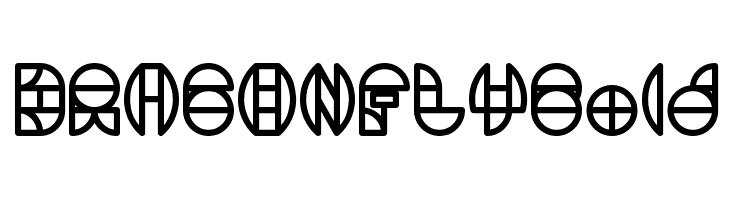
• DRAGON FLY Bold caratteri
A bold, geometric font with a futuristic and modern design.
• DRAGON FLY Bold Italic caratteri
A bold, italicized decorative font with geometric and modern elements.
• DRAGON FLY Italic caratteri
A bold, geometric italic font with a futuristic and dynamic style.
• DRAGON FLY_outlined caratteri
A futuristic, geometric outlined font with a modern and abstract style.
• DRAGON FLY-Filled caratteri
A bold, geometric font with playful and abstract character shapes.
• DRAGON FLY-Inverse caratteri
A geometric, futuristic font with outlined characters and a bold, abstract style.
• DRAGON FLY-Light caratteri
A geometric, futuristic font with bold, abstract shapes and symmetrical design.
• DRAGON FLY-Outlined-Hollow caratteri
A futuristic, outlined, and hollow font with geometric precision.